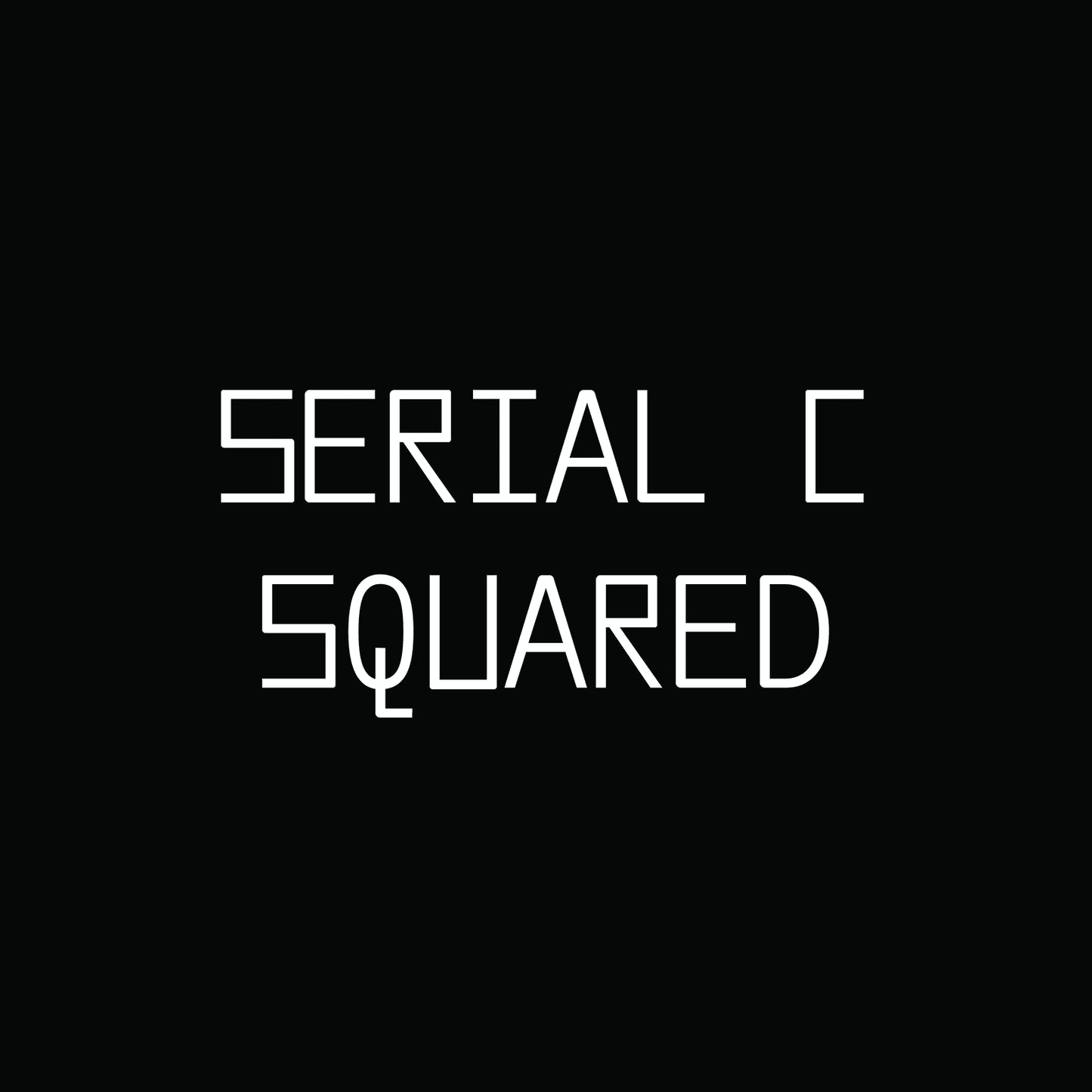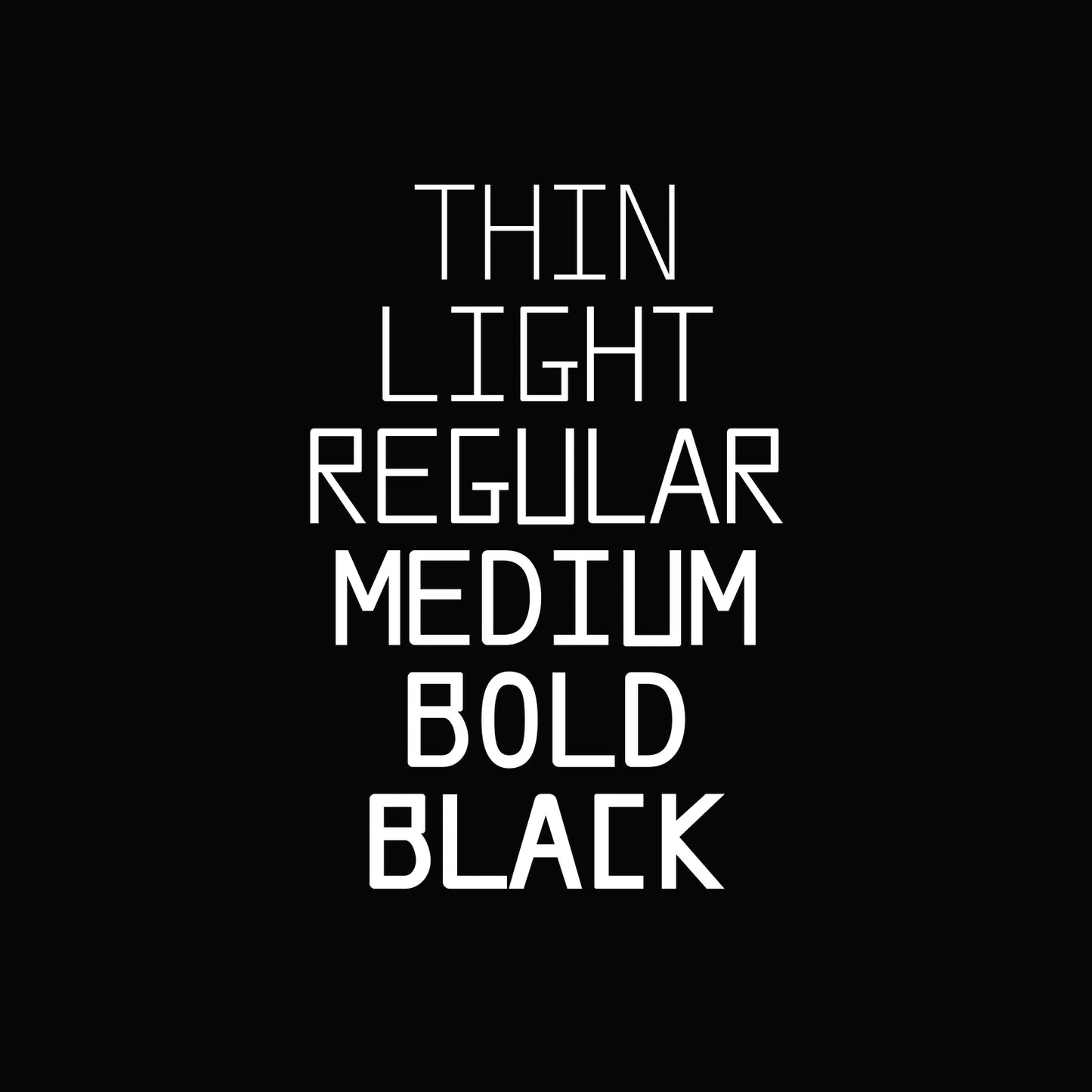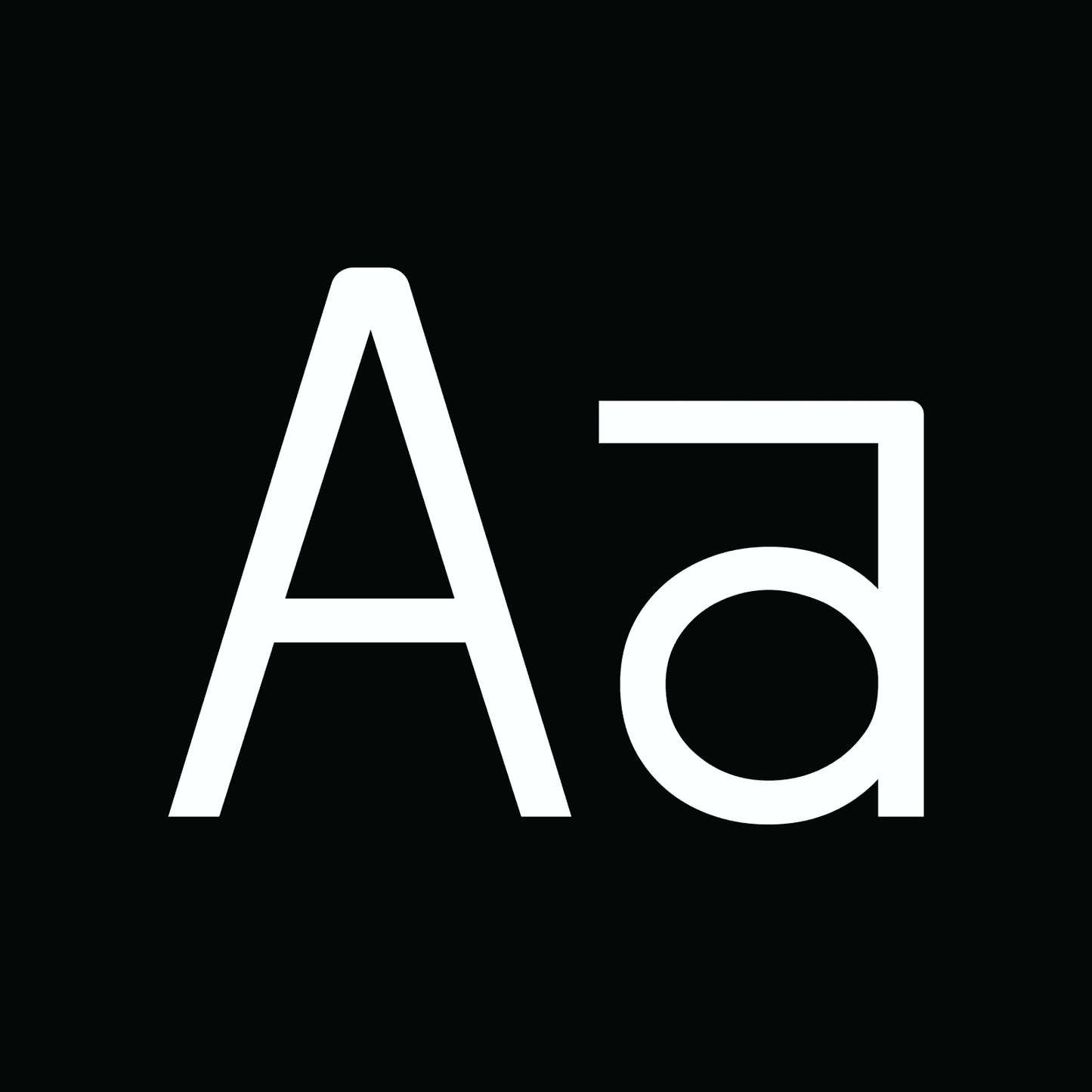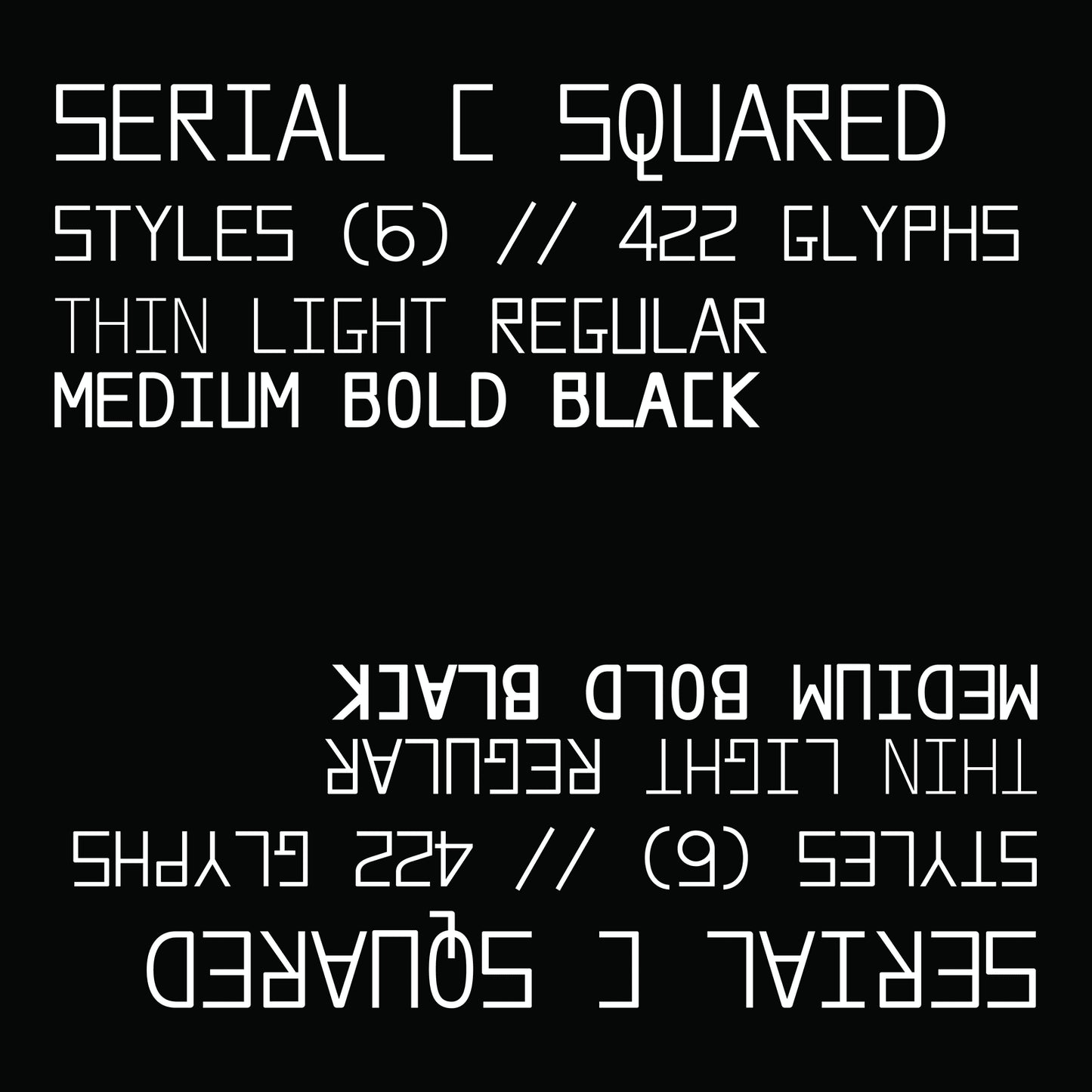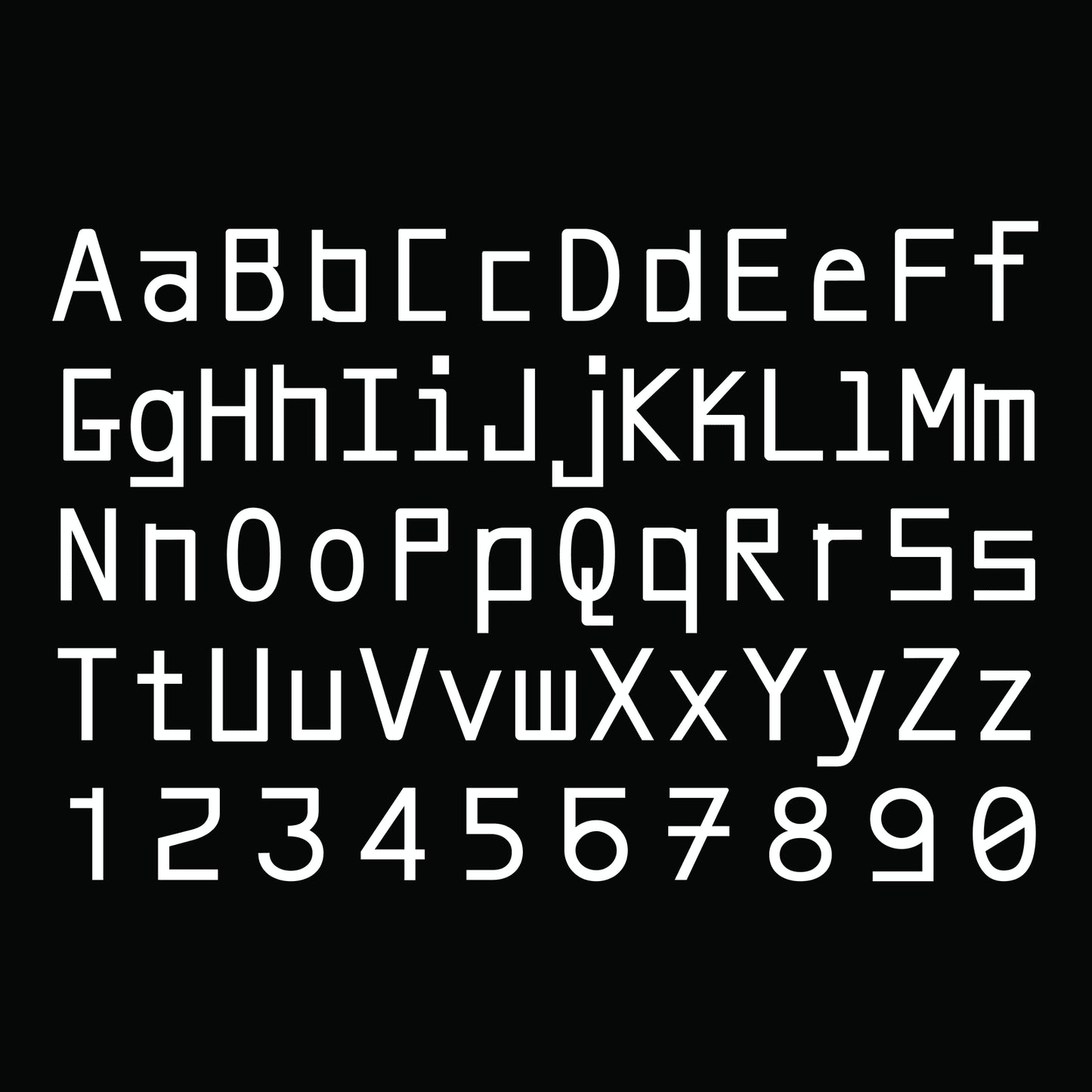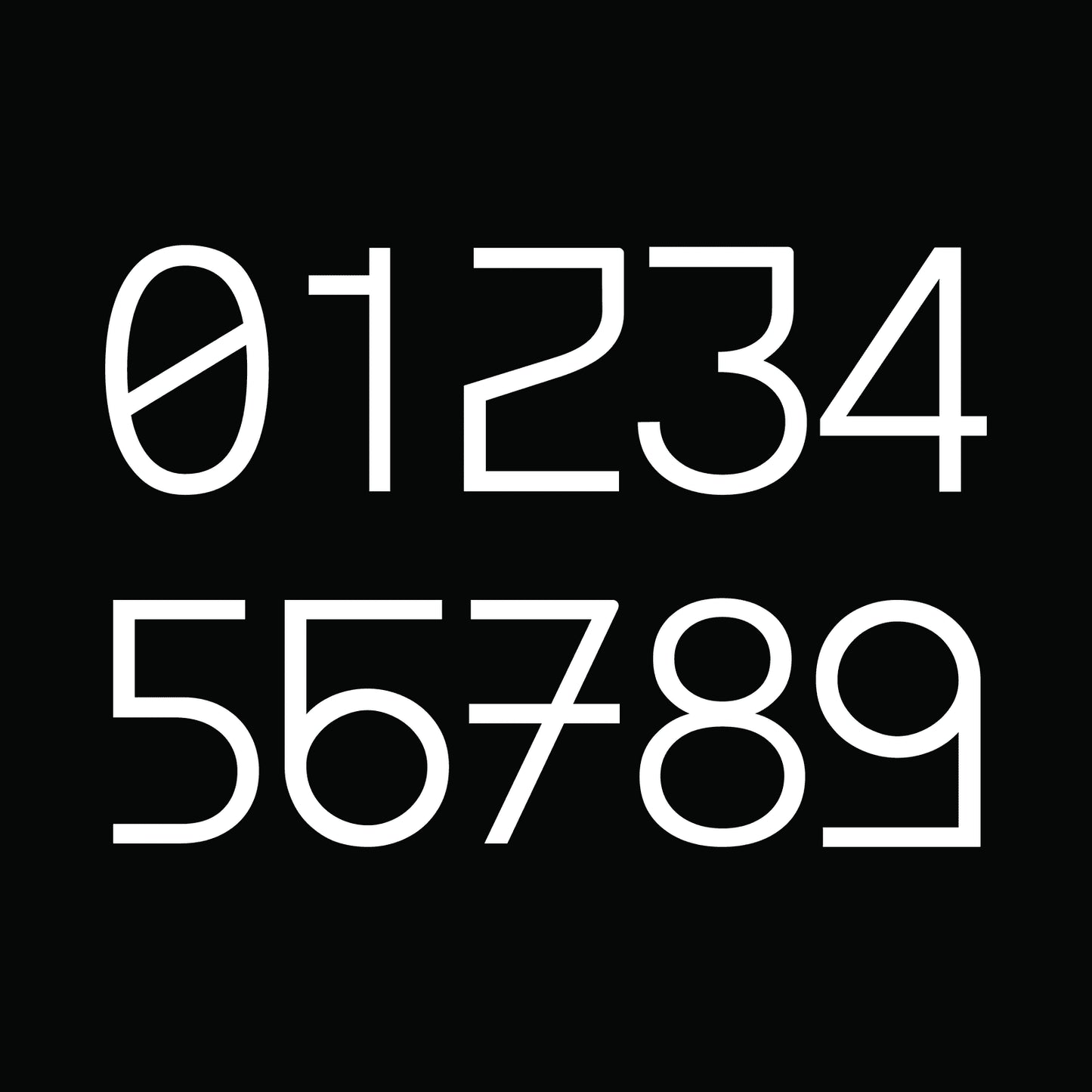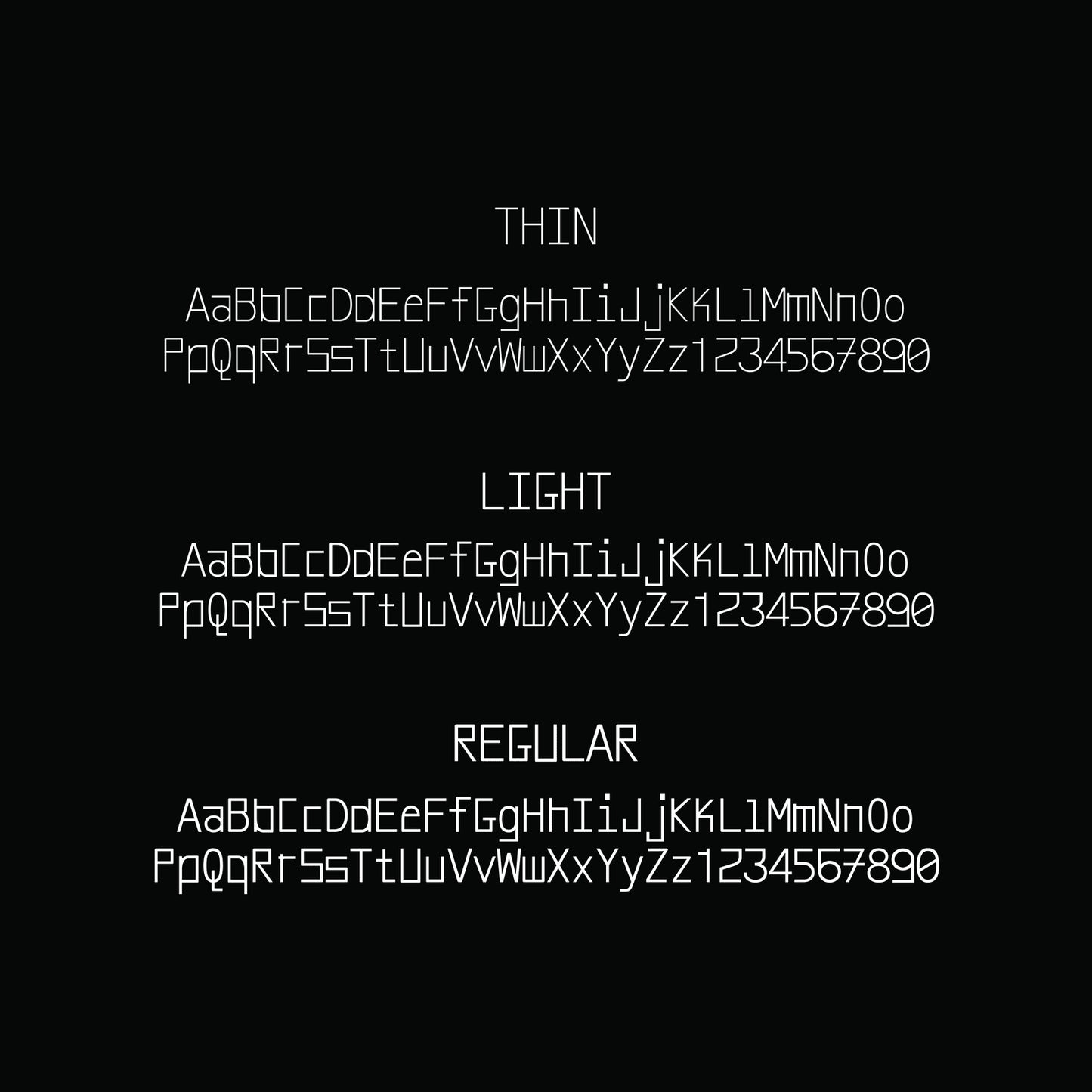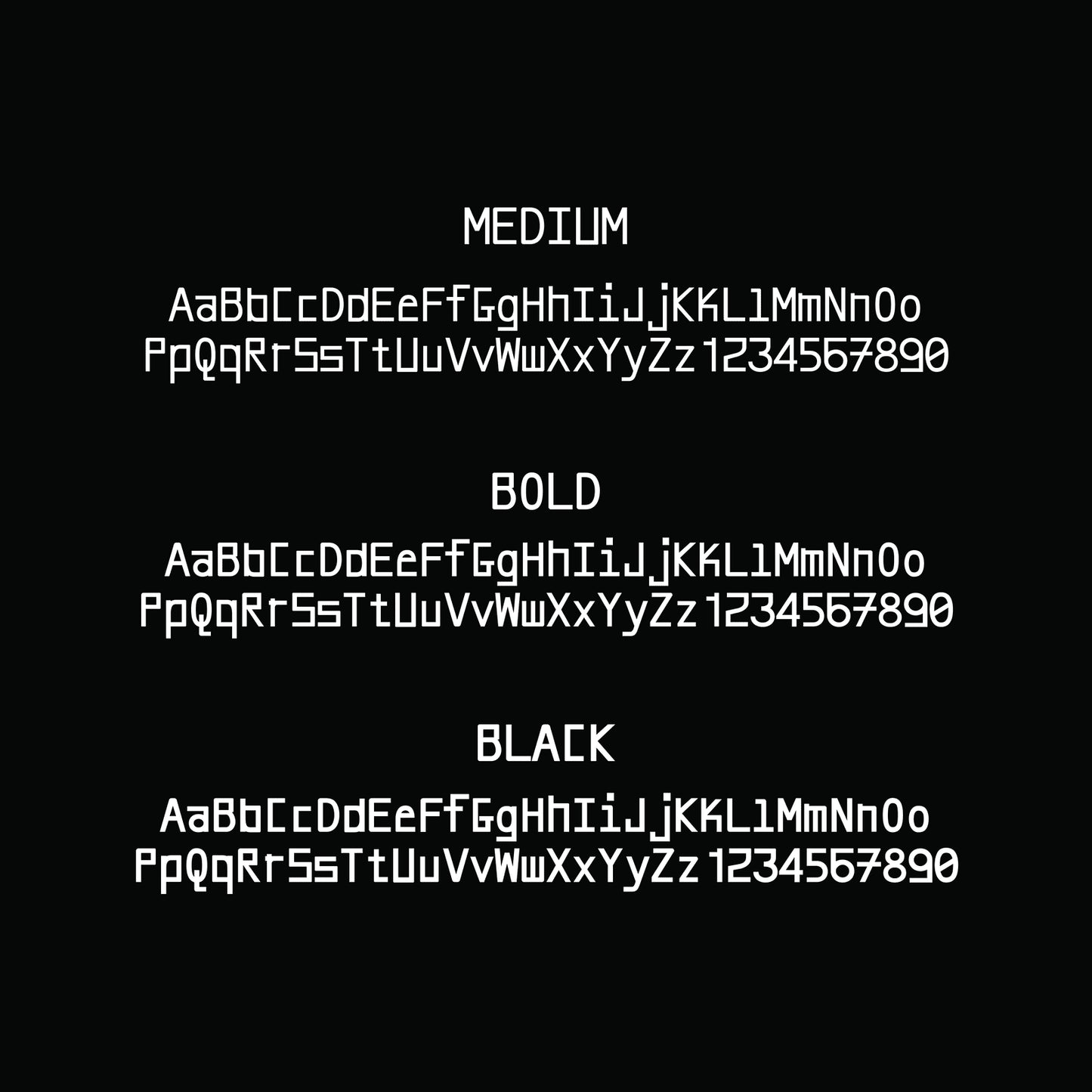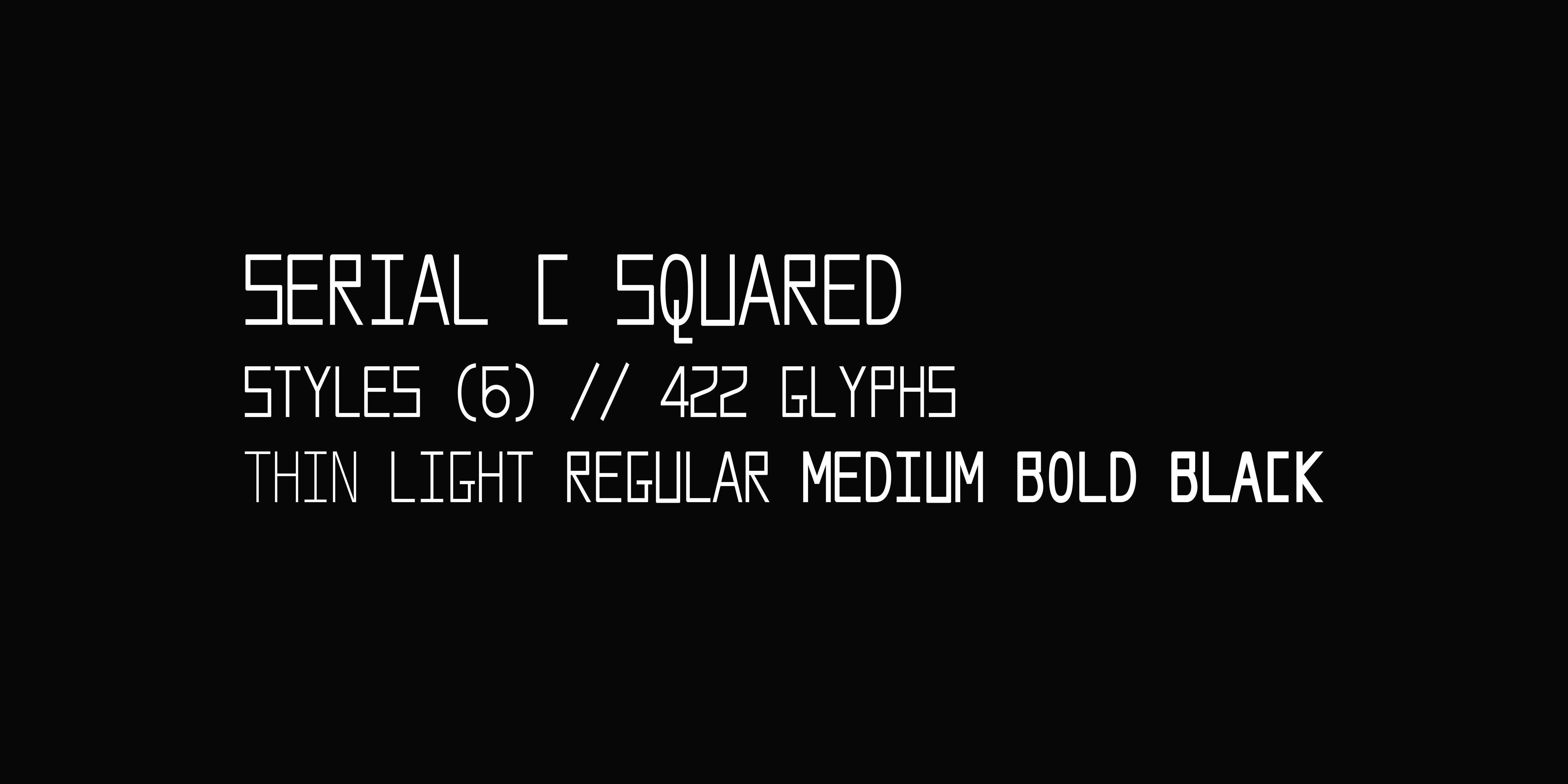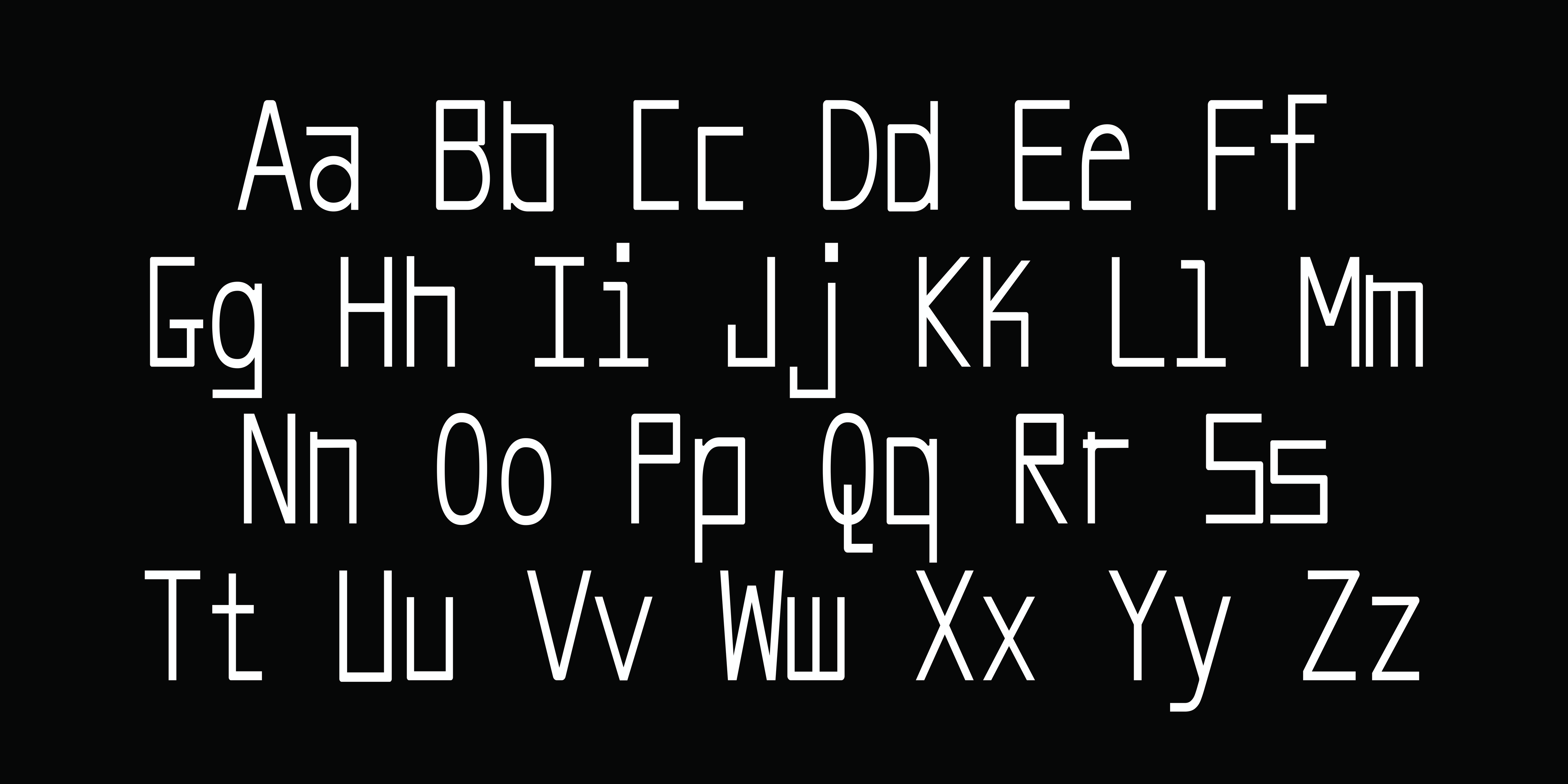
Serial C Squared
Serial C is the first monospaced typeface in the Serial family, designed with a clean and minimal system. While maintaining a technological and modern personality, it is primarily intended for coding, informational text, or a third-tier hierarchy.
Serial C is a stylistic variation of Serial C.